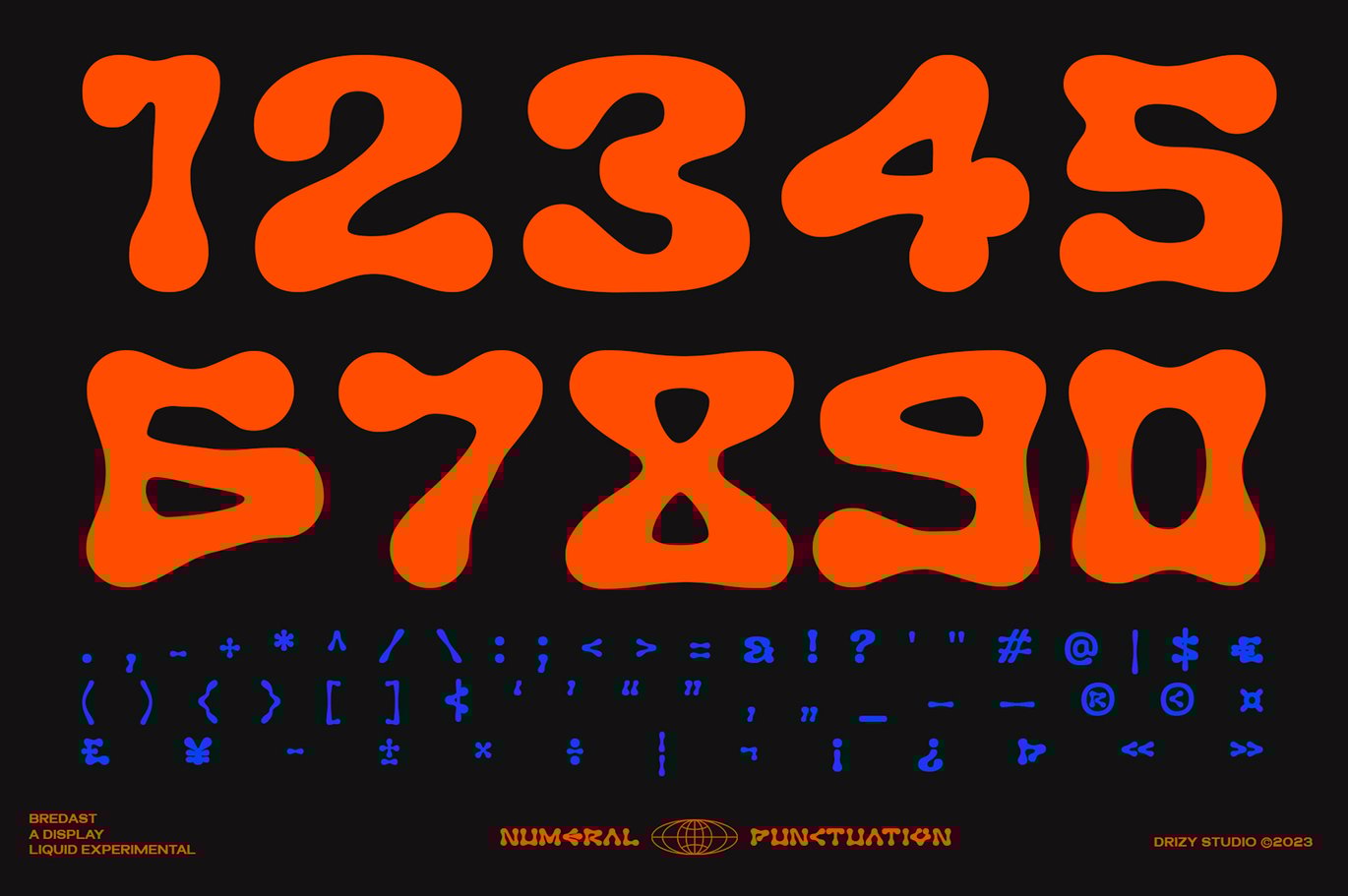
Bredast – Experimental Liquid Font
Bredast – Experimental Liquid Font is a versatile typeface ideal for various projects, including logos, branding, posters, blog headers, advertisements. The free version includes a full set of uppercase and lowercase letters, available in OTF format.